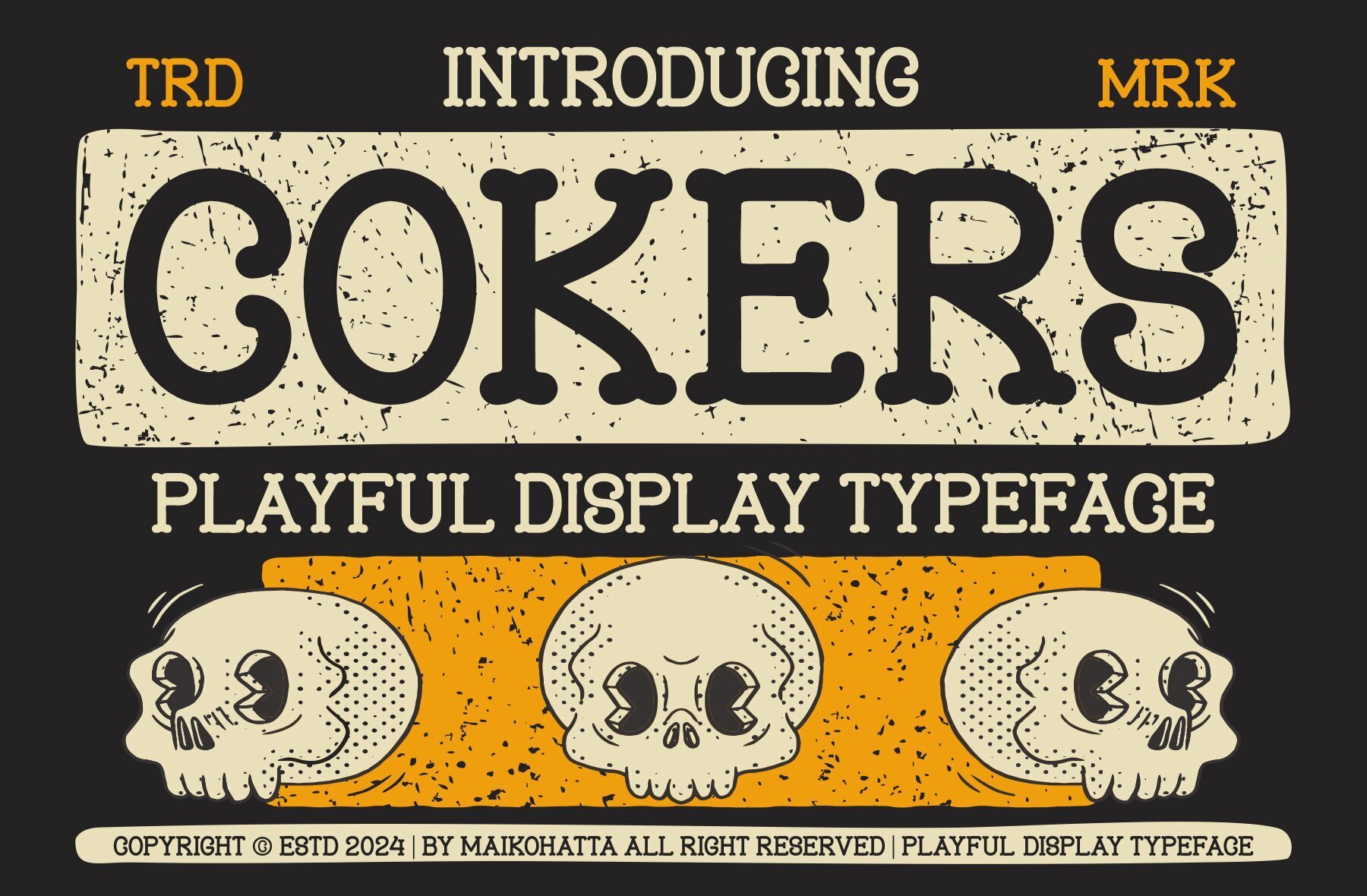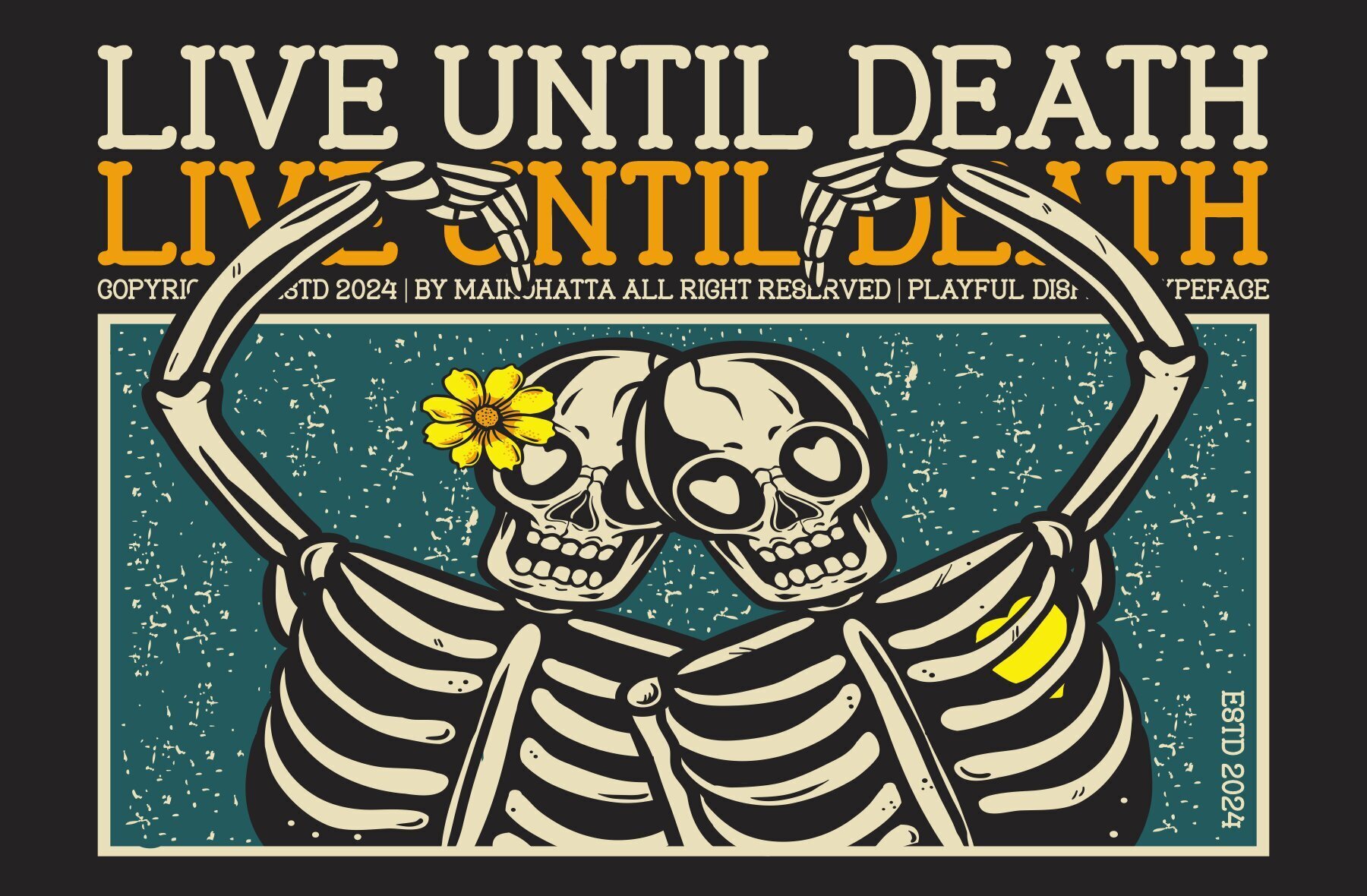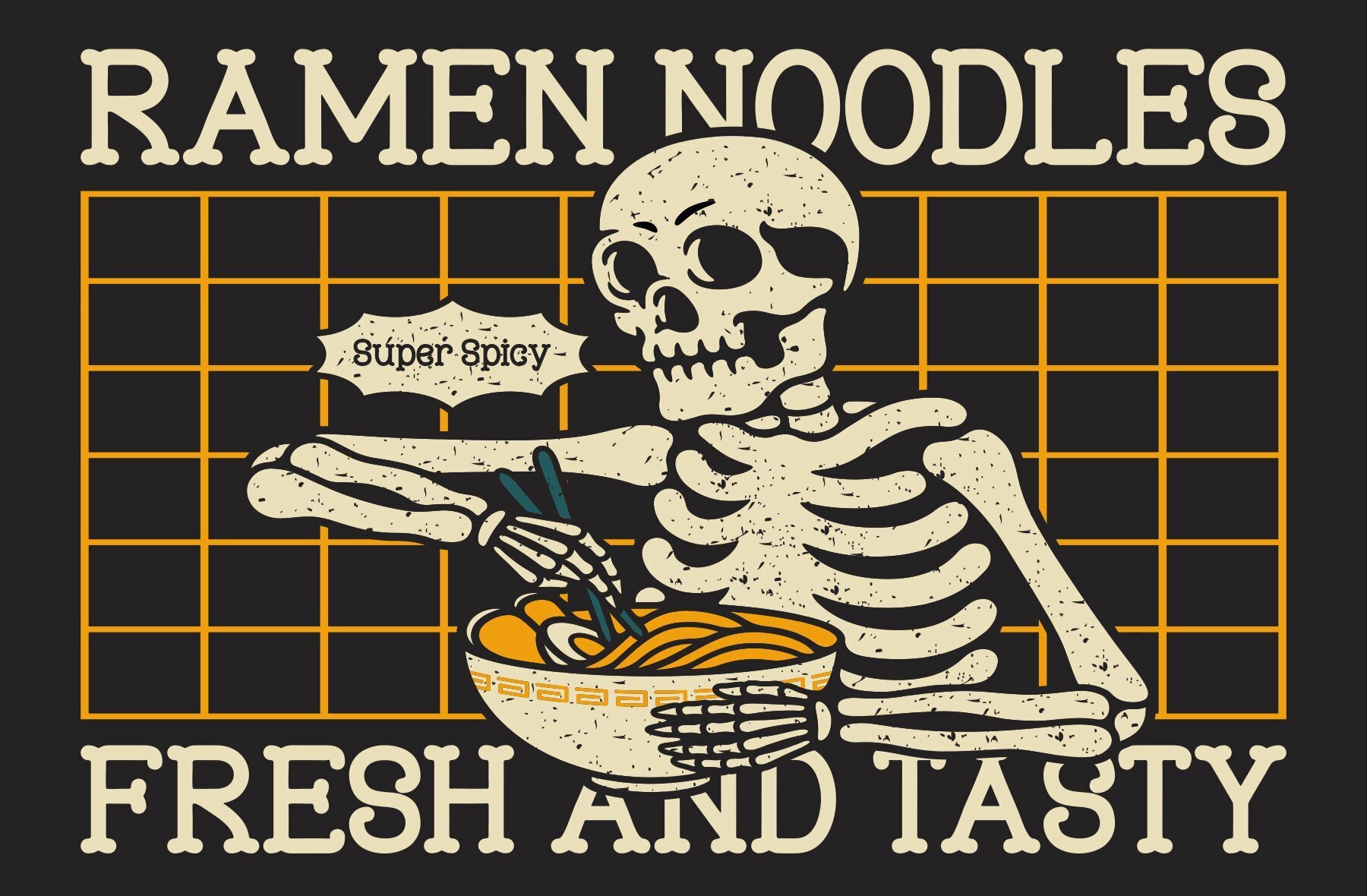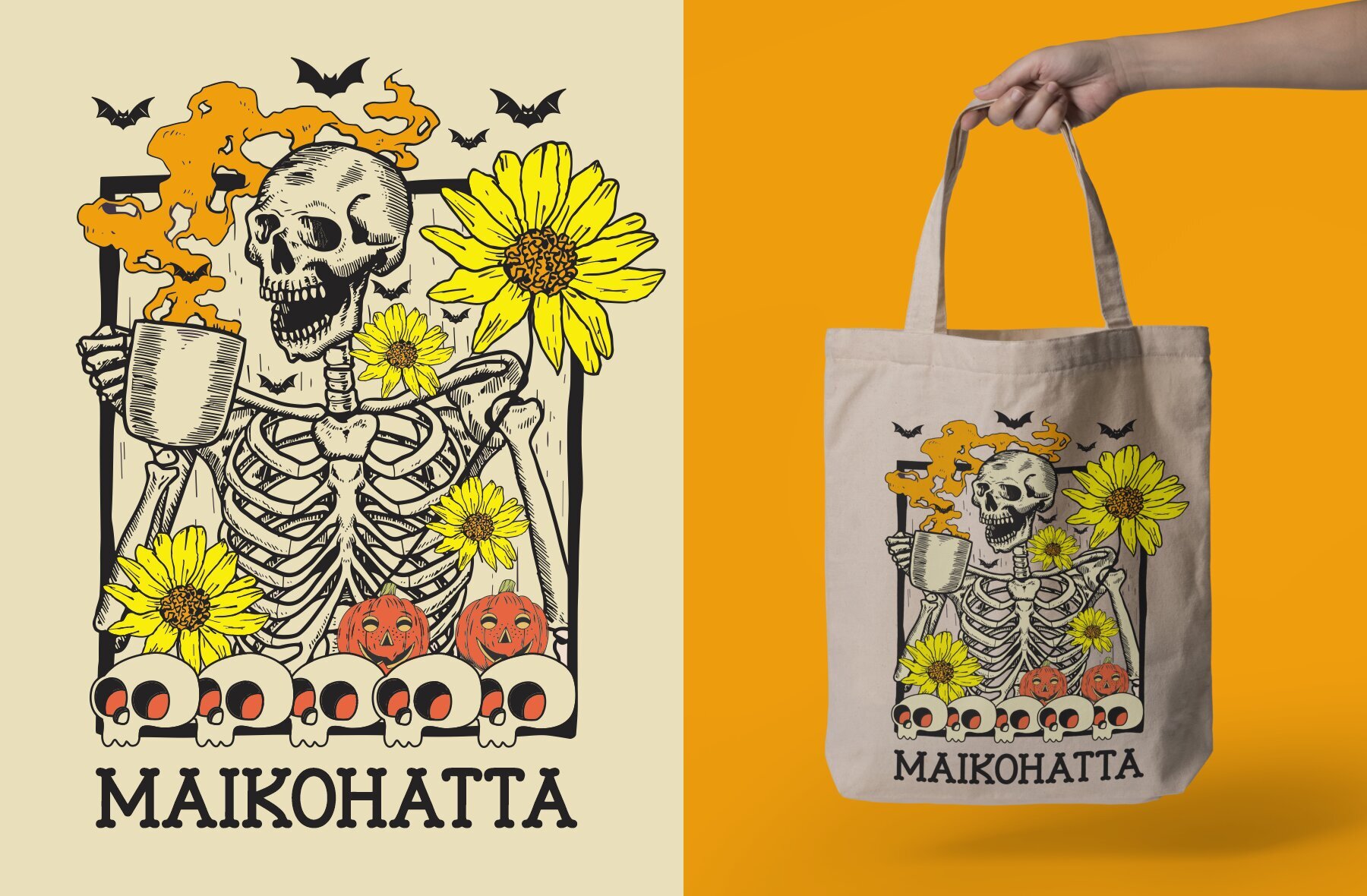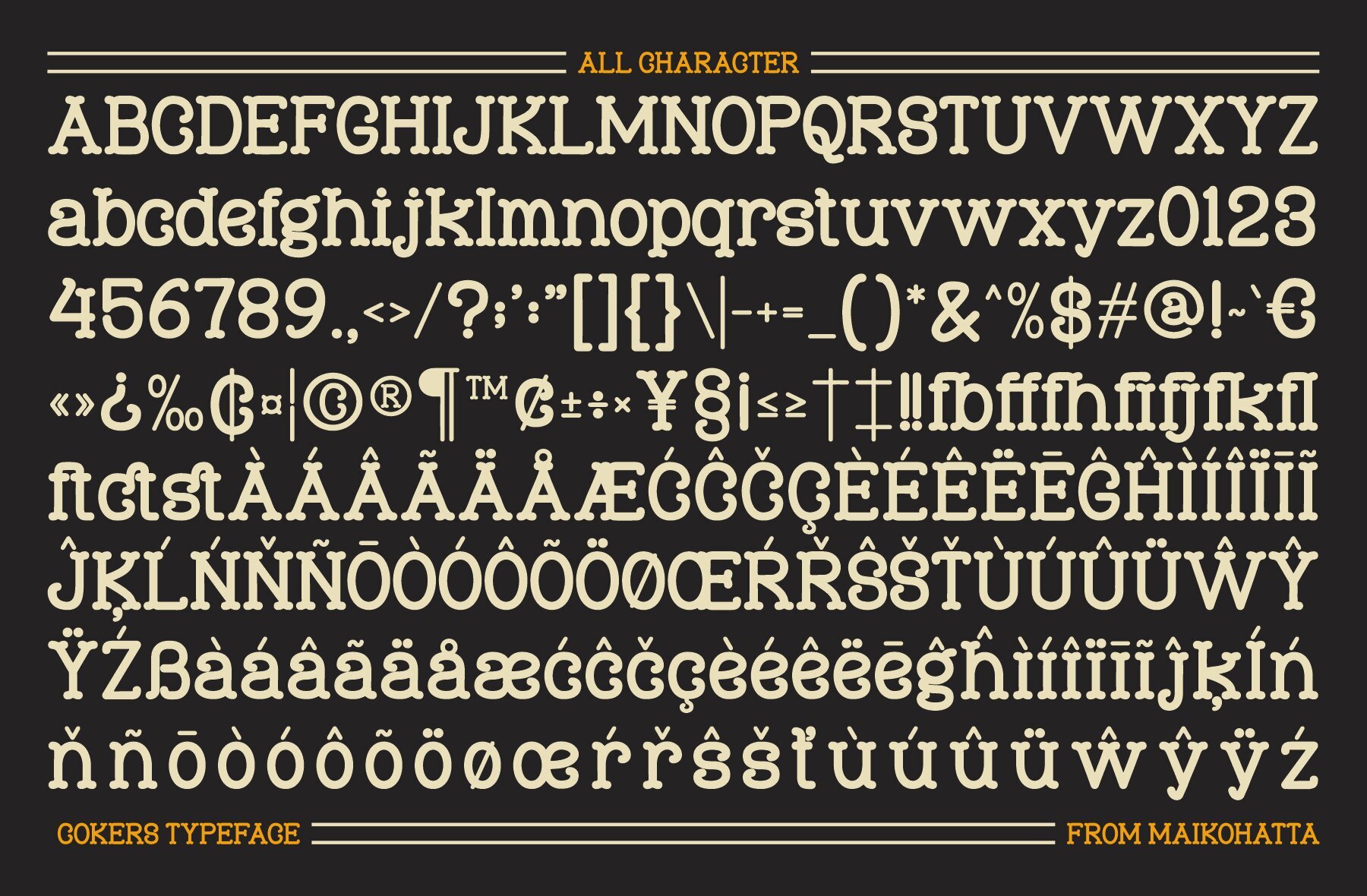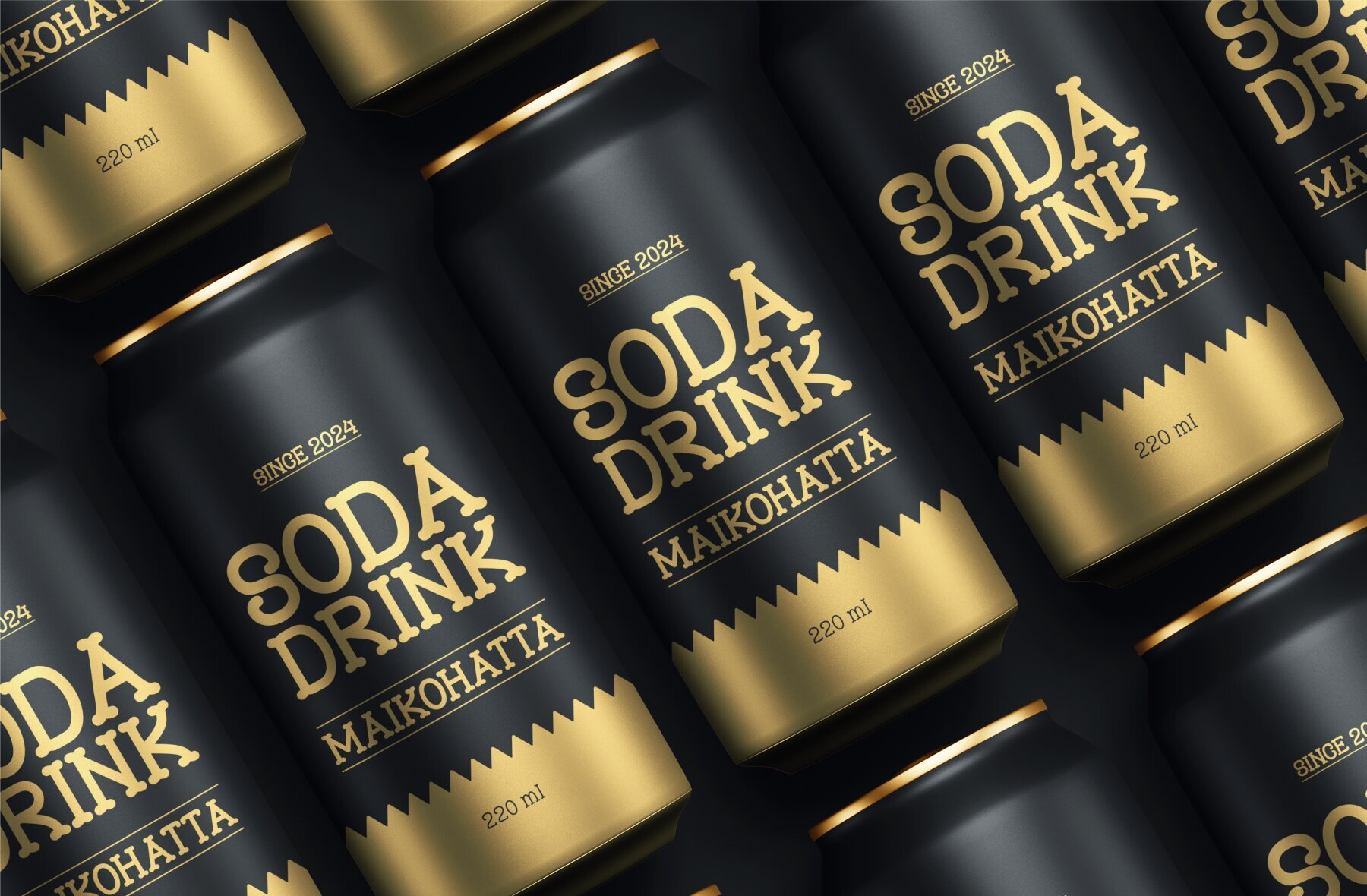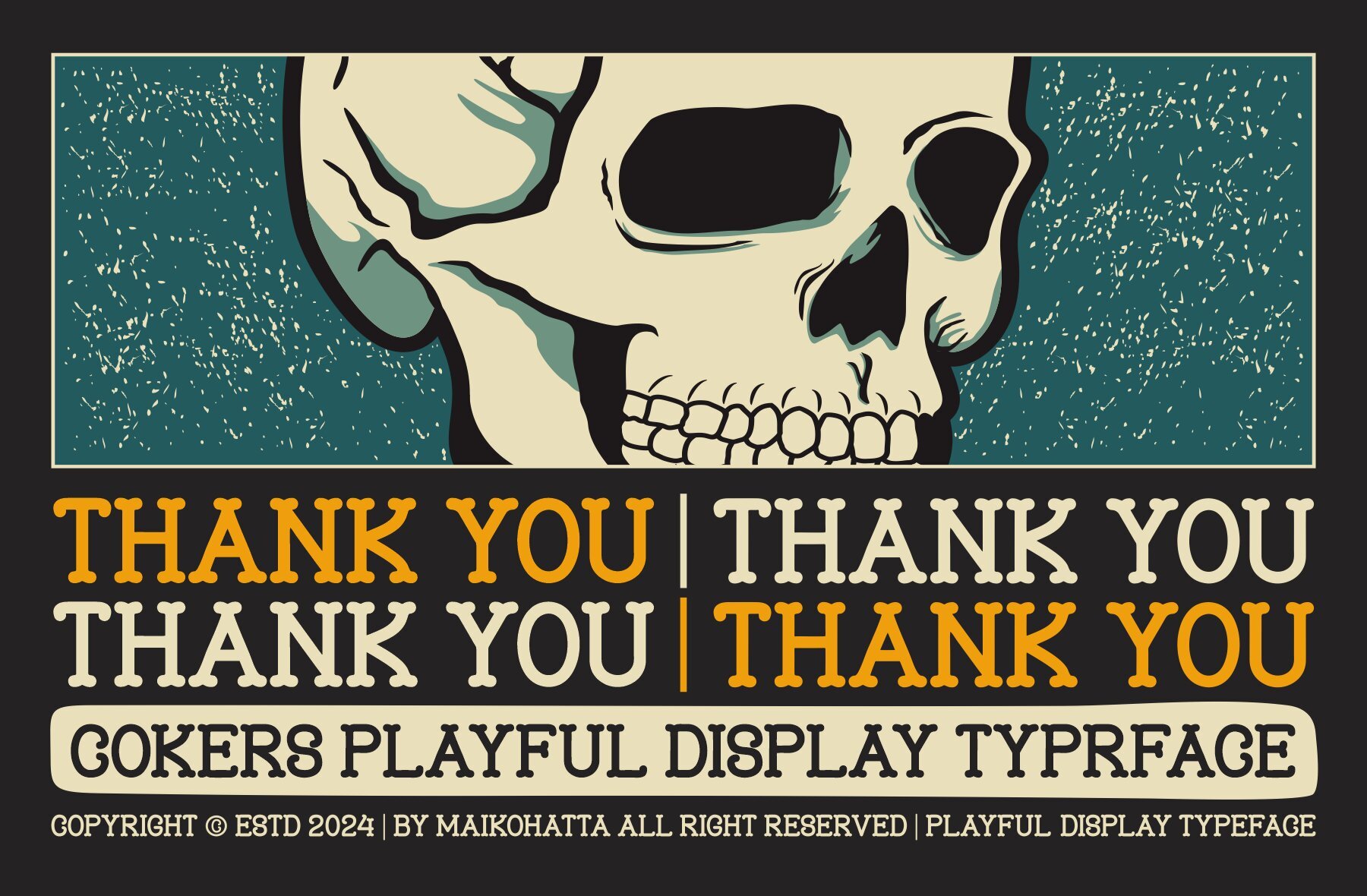
Cokers Font
Cokers Regular
Experience joy and cheerfulness with Cokers, a playful display typeface that brings a lighthearted tone to any project. With its handwritten style reminiscent of comics and cartoons, this font injects an element of fun and creativity. Cokers is perfect for designs that aim to emphasize playfulness and a youthful spirit, such as:Cokers: Playful Display Typeface